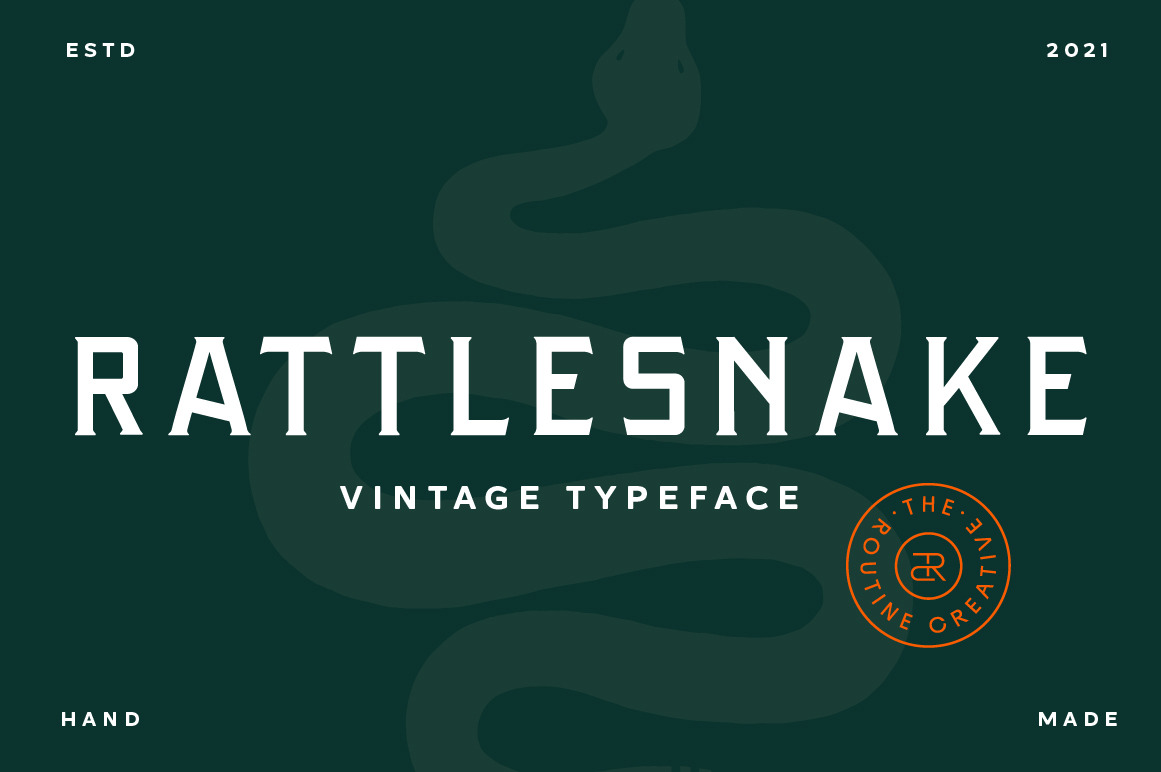
Rattlesnake - Vintage Serif Font
RATTLESNAKE
A masculine vintage display font with a sharp bite. This nostalgic font is super fun to work with and is perfect for logos, packaging, and posters, but really works well for all purposes.
THIS ENTIRE FONT IS CAPITALIZED
- Capital Characters
- Special Characters
- 12 Alternate Characters